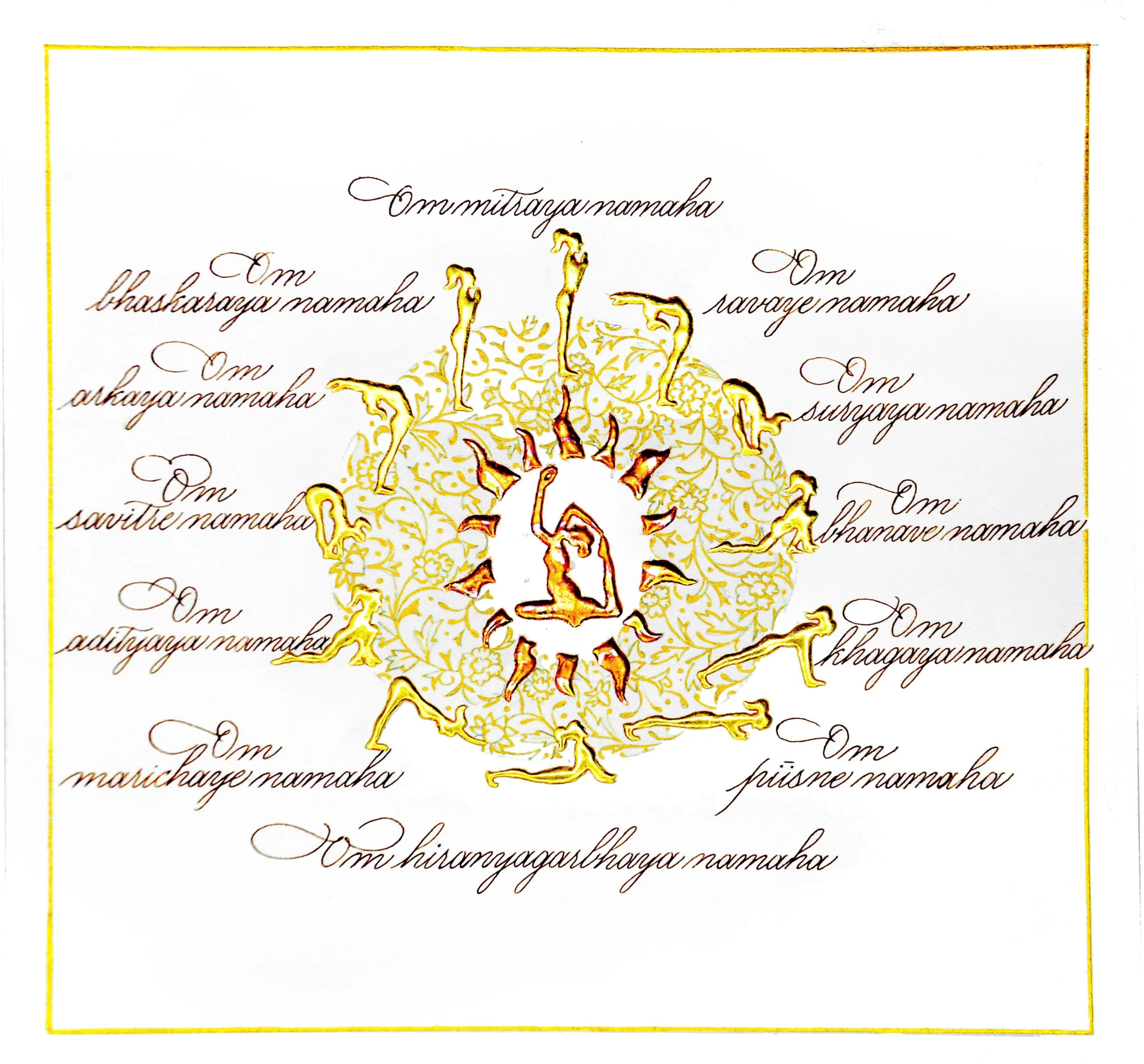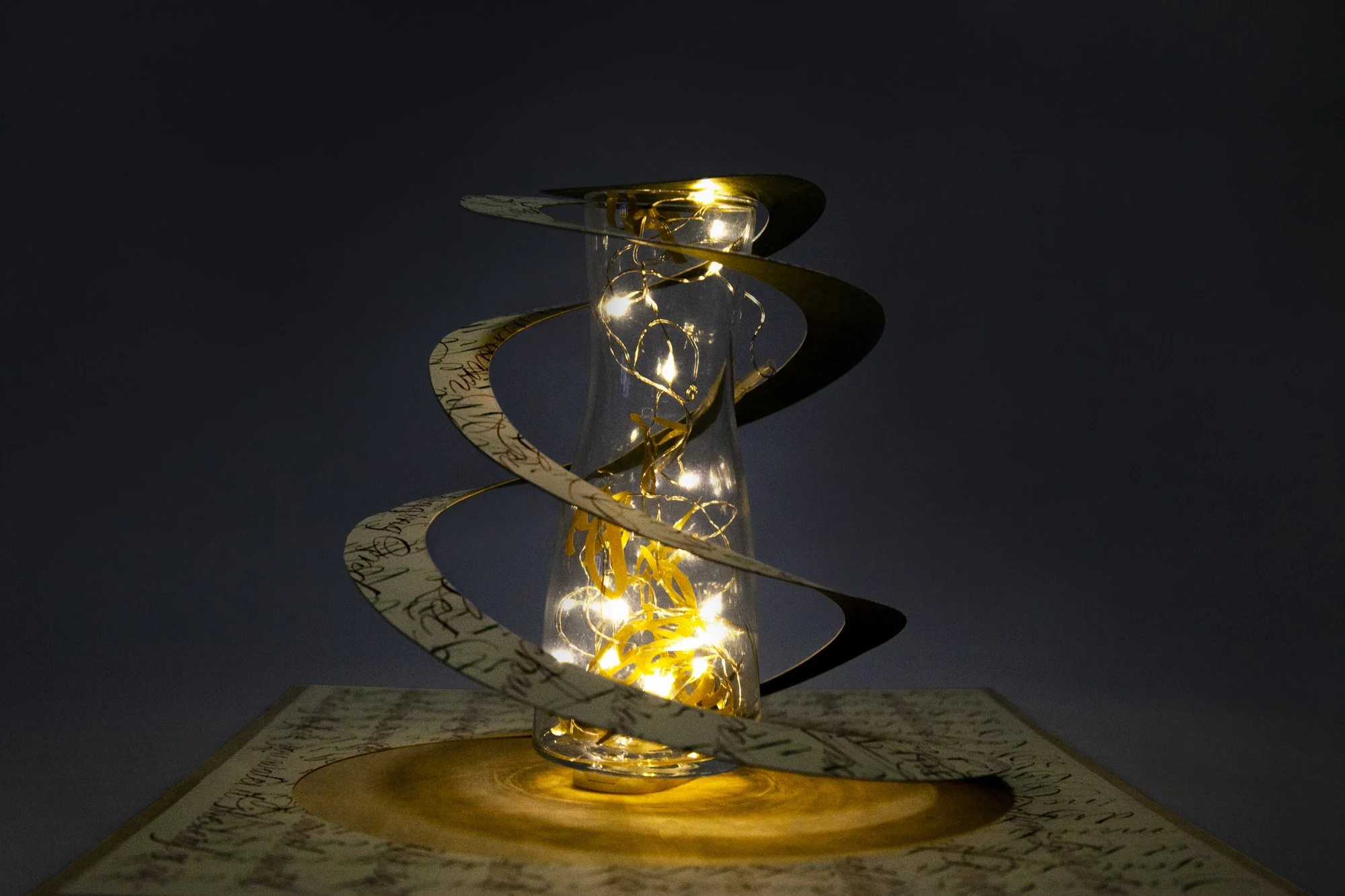
Presenting — An online exhibition
Symbiosis: The Mentoring Journey
The participants from The Art of Letters mentoring initiative have attained a certain level of skill through years of diligence and hard work. Now in a fresh learning environment, they have pushed boundaries to see creative breakthroughs and create works of art. Led by Toni Watts, Marina Soria and Eleanor Winters, six participating artists from different parts of the world have come together to showcase a body of works for Symbiosis: The Mentoring Journey, including Arathi Ayyangar, Susan Lui, Judith Lee, Lissette Landauro, Nichole Tin and Dorothy Lim
Toni Watts’ group will display their experiments with traditional art of gilding based on 12th century methods, taking it beyond its usual boundaries into unexplored territories.
Marina Soria’s group will share their journey in experimental calligraphy, interwoven with the ‘Garden’ theme.
Eleanor Winters’ group translate traditional calligraphy into expressive pieces rooted in deeply personal stories and family history.
Introducing
Pushing boundaries of gilding
Led by Toni Watts, showcasing works by Arathi Ayyangar and Susan Lui
TONI WATTS | Royal Bengal Tiger
TONI WATTS | Ocean Blue
TONI WATTS | The Conference of the Birds
ARATHI AYYANGAR | Four Seasons by Vivaldi
ARATHI AYYANGAR | New Beginnings
ARATHI AYYANGAR | Divine Salutations (Re and lah)
ARATHI AYYANGAR | Bloom in Grace
ARATHI AYYANGAR | Invictus
SUSAN LUI | Dreams
SUSAN LUI | Morris
SUSAN LUI | Dragonfly on Pebble
SUSAN LUI | Wisdom
SUSAN LUI | Hope is the thing with feathers
Introducing
Experimental calligraphy: The garden
Led by Marina Soria, showcasing works by Judith Lee and Lissette Landauro
MARINA SORIA | Claude Monet’s Garden
MARINA SORIA | The Water Lilies Pond
MARINA SORIA | Giverny III
LISSETTE LANDAURO | Inner Garden Roots
LISSETTE LANDAURO | Greenhouse
LISSETTE LANDAURO | Janice's Garden
JUDITH PERERA LEE | Seeking Peace: Lake of Lotuses
JUDITH PERERA LEE | Inner-Garden Letters
JUDITH PERERA LEE | Inner-Lit: What Grows Within
Introducing
Expressive forms of traditional calligraphy
Led by Eleanor Winters, showcasing works by Dorothy Lim-Chew & Nichole Tin
ELEANOR WINTERS | En Mémoire, Enfants et Vieillards (1)
ELEANOR WINTERS | En Mémoire, Enfants Juifs
ELEANOR WINTERS | Des Rafles Massives (2)
ELEANOR WINTERS | Victimes Innocentes
DOROTHY LIM-CHEW | Fear not
DOROTHY LIM-CHEW | Unscathed
DOROTHY LIM-CHEW | Never (trio)
DOROTHY LIM-CHEW | With you
DOROTHY LIM-CHEW | Fear Not (II)
NICHOLE TIN | Slanted truths
NICHOLE TIN | Loss
NICHOLE TIN | Onwards